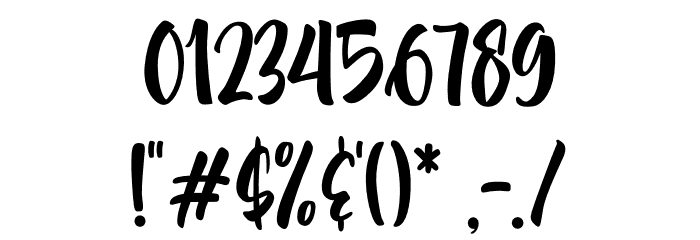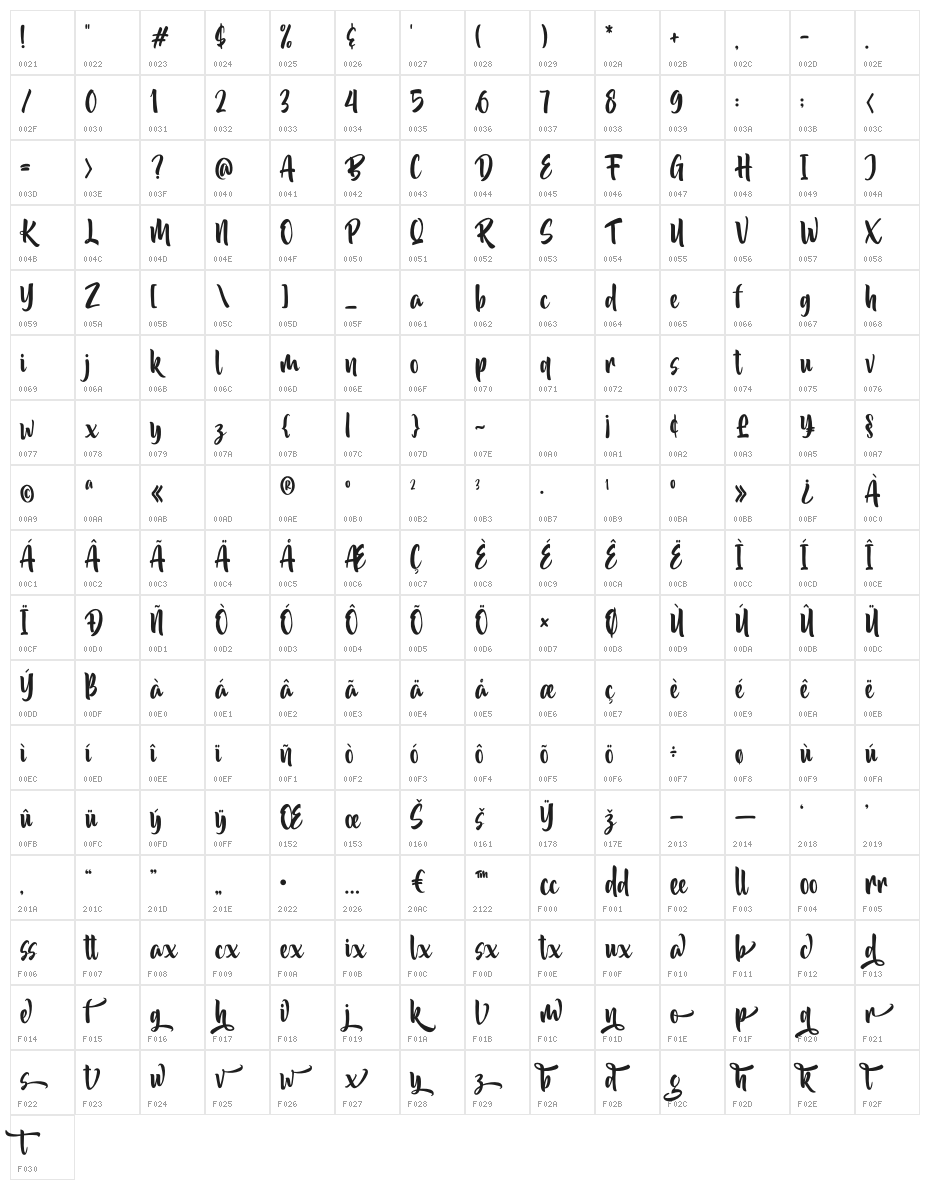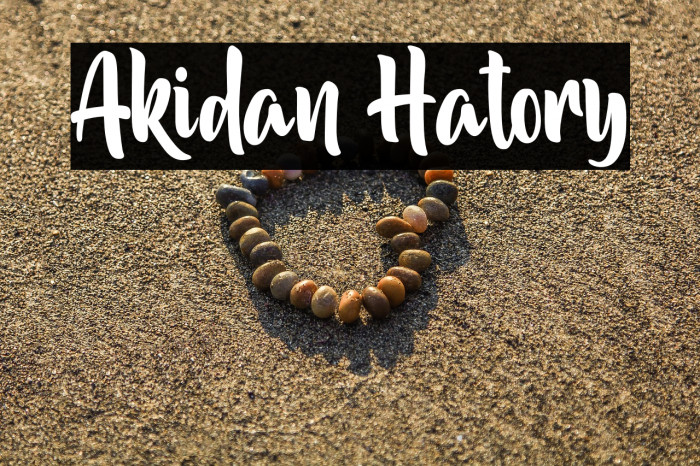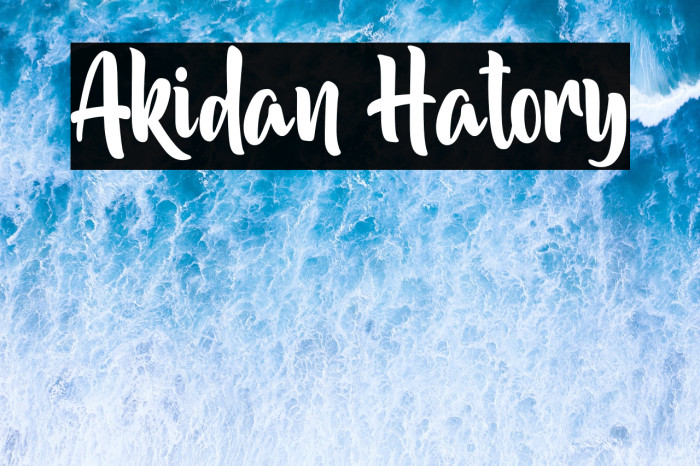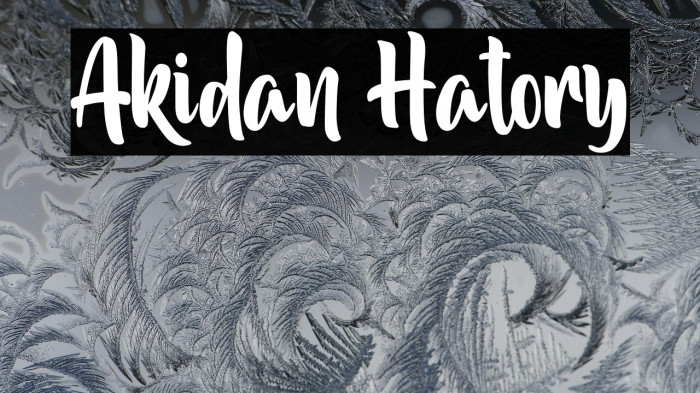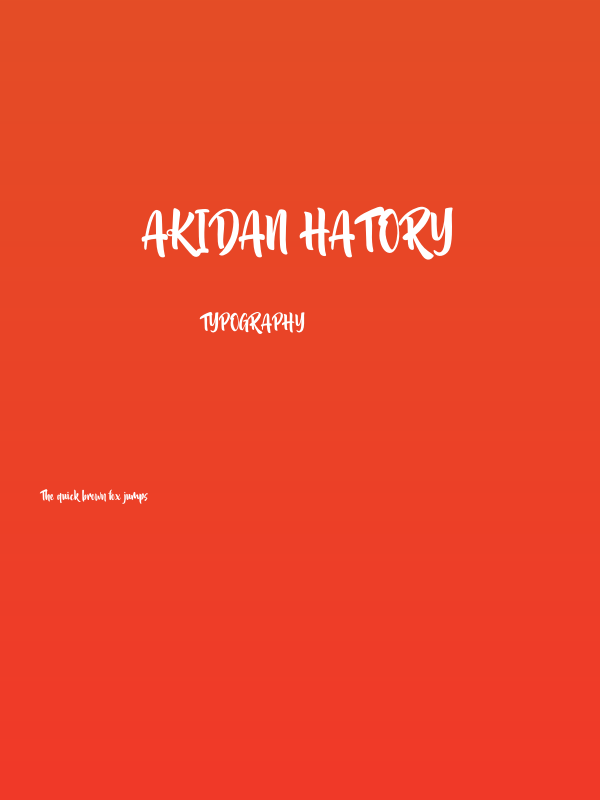
Akidan Hatory Font
Akidan Hatory Description
This font features a bold and expressive handwritten style, characterized by its fluid and dynamic strokes. The uppercase letters are tall and slightly condensed, giving a sense of elegance and flair. The lowercase letters maintain a consistent flow, with some characters having unique loops and curves that add personality. The numerals are bold and clear, ensuring readability. Special characters are creatively designed, matching the overall playful and artistic vibe. This font is perfect for projects that require a personal touch, such as invitations, greeting cards, or artistic branding.
| Proposed Projects | Ideal for invitations, greeting cards, artistic branding, and creative projects. |